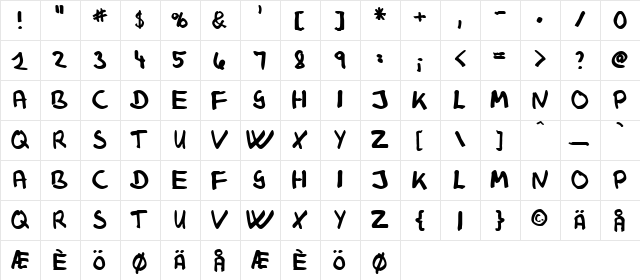
Klaus Johansens haandskrift Regular
Design Context for Klaus Johansens haandskrift Typeface
Klaus Johansens haandskrift takes a measured approach to typography — its balanced proportions and neutral character make it a reliable workhorse for both digital and print work.